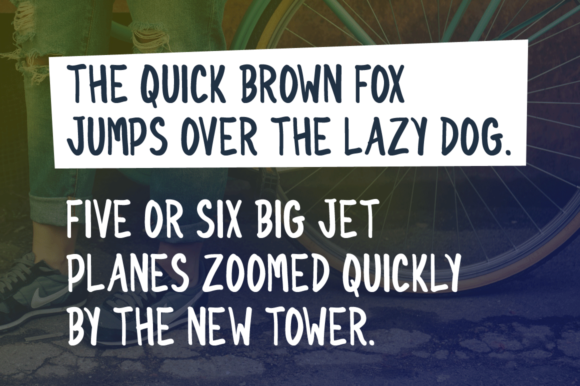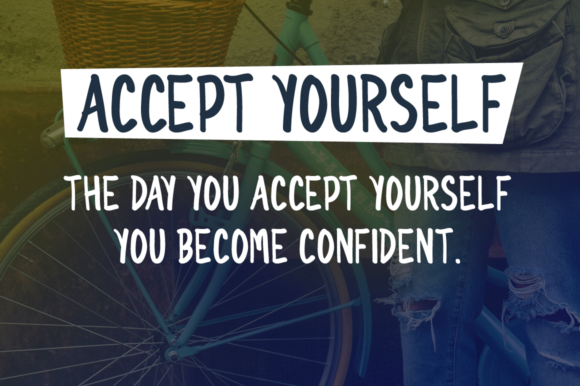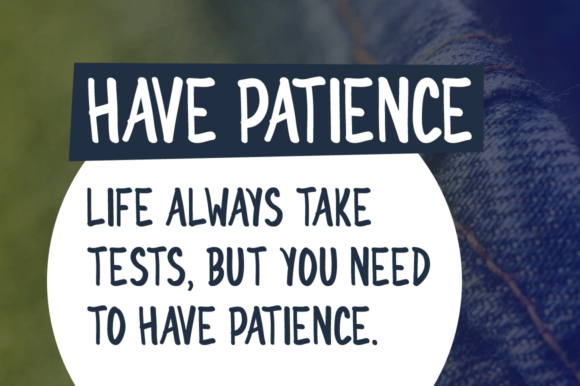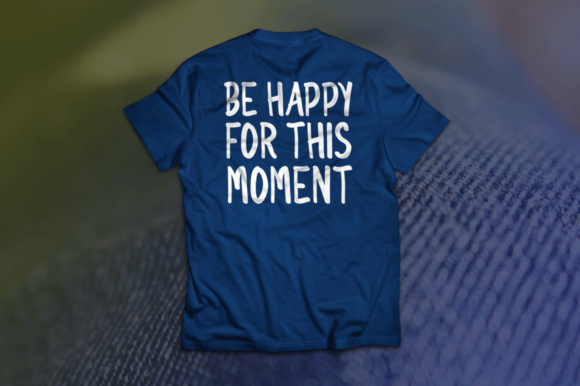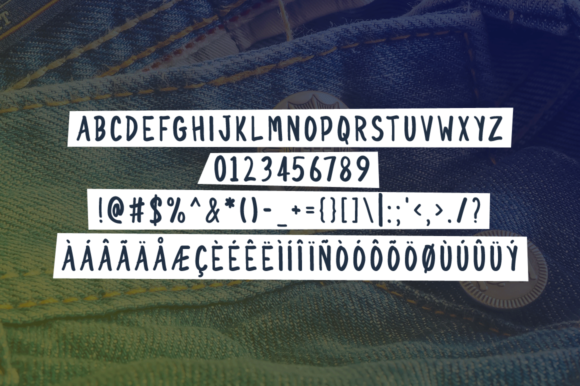
Introduction to BlueJeans Font
Have you ever found yourself stuck in a design rut, struggling to find the perfect font to capture the essence of your creative project? I know I have. Remember that one time when you were working on a branding project, and you wanted to convey a relaxed yet stylish vibe? That’s where the BlueJeans Font comes in – a cool and casual handwritten font that’s perfect for giving your designs a laid-back yet well-styled feel.
The BlueJeans Font is more than just a design resource; it’s a valuable asset for designers who want to add a touch of personality to their work. With its high-quality design, this font is suitable for branding and looks great in body text as well. Plus, with a transparent background, you can easily incorporate it into your design without any distractions.
Key Features of BlueJeans Font
- High-quality design resource suitable for various creative projects
- Comes in a single font size, making it easy to integrate into different designs
- Features high-resolution designs ideal for print and digital applications
- Unique, modern design that adds a touch of sophistication to any project
- Easy to use and compatible with most design software and operating systems
Honest Review: BlueJeans Font
As a designer, I’m always on the lookout for high-quality design resources that can elevate my creative projects. The BlueJeans Font is one such resource that caught my attention.
What works well is the font’s modern aesthetic and versatility. It’s perfect for a variety of designs, from digital products to print materials. The transparent background is a nice touch, allowing for seamless integration with other design elements.
Here are some of the key features that stood out to me:
- High-quality typography with clean lines and minimal embellishments
- Works well in both digital and print contexts
- ⚠️ Limited character set, which may be a concern for designers working on projects that require specific characters
- ⚠️ Not as versatile as some other fonts, which may limit its use in certain design scenarios
Overall, I think the BlueJeans Font is a solid choice for designers looking for a clean and modern typeface. While it may have some limitations, its free download and transparent background make it a great resource to have in your toolkit.
Introduction to BlueJeans Font
BlueJeans Font is a high-quality design resource that offers a unique and stylish look for your creative project. With a transparent background, this font is perfect for designers who want to add a touch of elegance to their designs.
Tips for Getting the Most Out of BlueJeans Font
To get the most out of BlueJeans Font, try combining it with other design elements, such as images and graphics, to create a visually appealing design. You can also experiment with different font sizes and colors to add emphasis to your text.
Common Use Cases for BlueJeans Font
BlueJeans Font is perfect for a variety of creative projects, including:
- Business presentations and reports
Alternatives to BlueJeans Font
Comparison to BlueJeans Font: Helvetica Neue offers a more professional and sophisticated look compared to BlueJeans Font, which has a more casual feel.
Comparison to BlueJeans Font: Montserrat has a more urban and edgy feel compared to BlueJeans Font, which has a more casual and relaxed vibe.